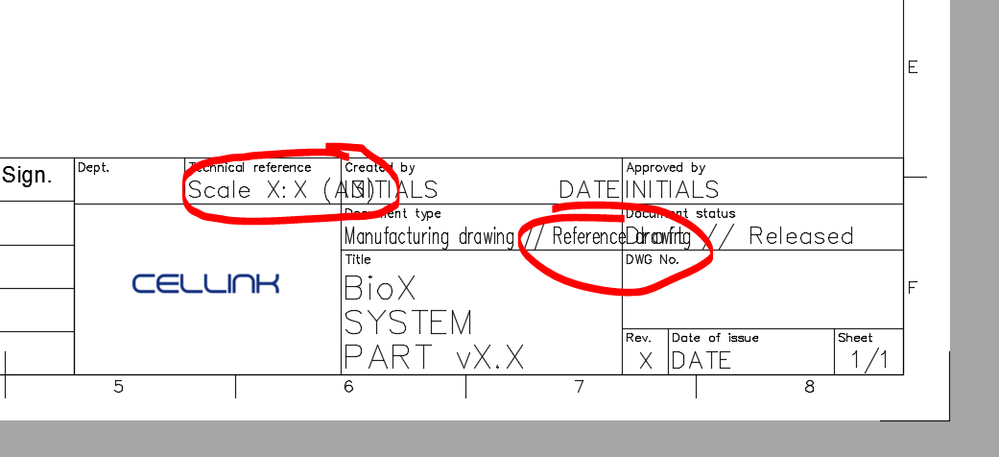
Title block font error
Right, so I've just got a new workstation and suddenly the font I previously had in my title blocks is replaced with another font. This new font won't scale properly and as such one field goes over into the next, making the title block unreadable. See attached picture.
In the template, which I created on my previous computer, this text was in Arial. I have Arial installed as a system font on my new computer as well, but I'm guessing that Fusion doesn't recognize it or something.
Parts are to be sent to manufacturing early next week and I need drawings that can be read by the metalworking shop...
Reducing the lenght of the text in the fields may be a temporary workaround, but I would like to get to the bottom of this so that I can use the templates.
I'm sorry to hear about this issue! I know that I have seen some similar issues where if the justification for the template fields were set to "Middle Justified", but in those cases, the text ended up "squishing" up, becoming unreadable.
What was the solution to this, we have this same issue???
Our built-in title blocks don't use Arial, they use Arial Unicode MS, which should come on Windows systems and/or with an installation of Microsoft Office. It looks identical---you can't tell the difference by looking at the characters---but it has an expanded character set to support other languages. That is the first thing I would check.
If you are sure your title block uses Arial, then make sure Fusion can "find" the font. Go to the Annotation Settings in the toolbar at the bottom of your drawing, go to Annotation Font, and see if Arial is in the list.
Ok, found the font downloaded it and tried again. It still looks bad through the web browser interface on some drawings and good on others. I was hoping the solution was that easy (maybe it still will be) but not there yet.
Right; Arial Unicode MS is not installed on the servers used for viewing drawings on Autodesk 360 (web interface). That is something we have on our list to fix. If your drawing uses Arial, it should appear correctly on Autodesk 360.